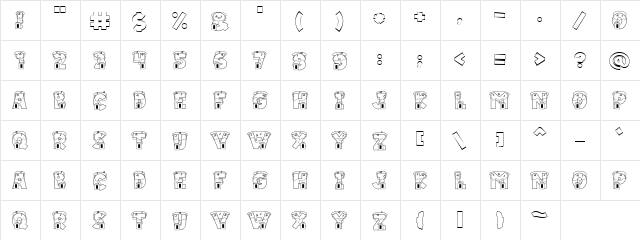
LD Jammin' Regular
Design Context for LD Jammin' Typeface
LD Jammin' is a composed and adaptable typeface that performs quietly and consistently across a wide range of design contexts.